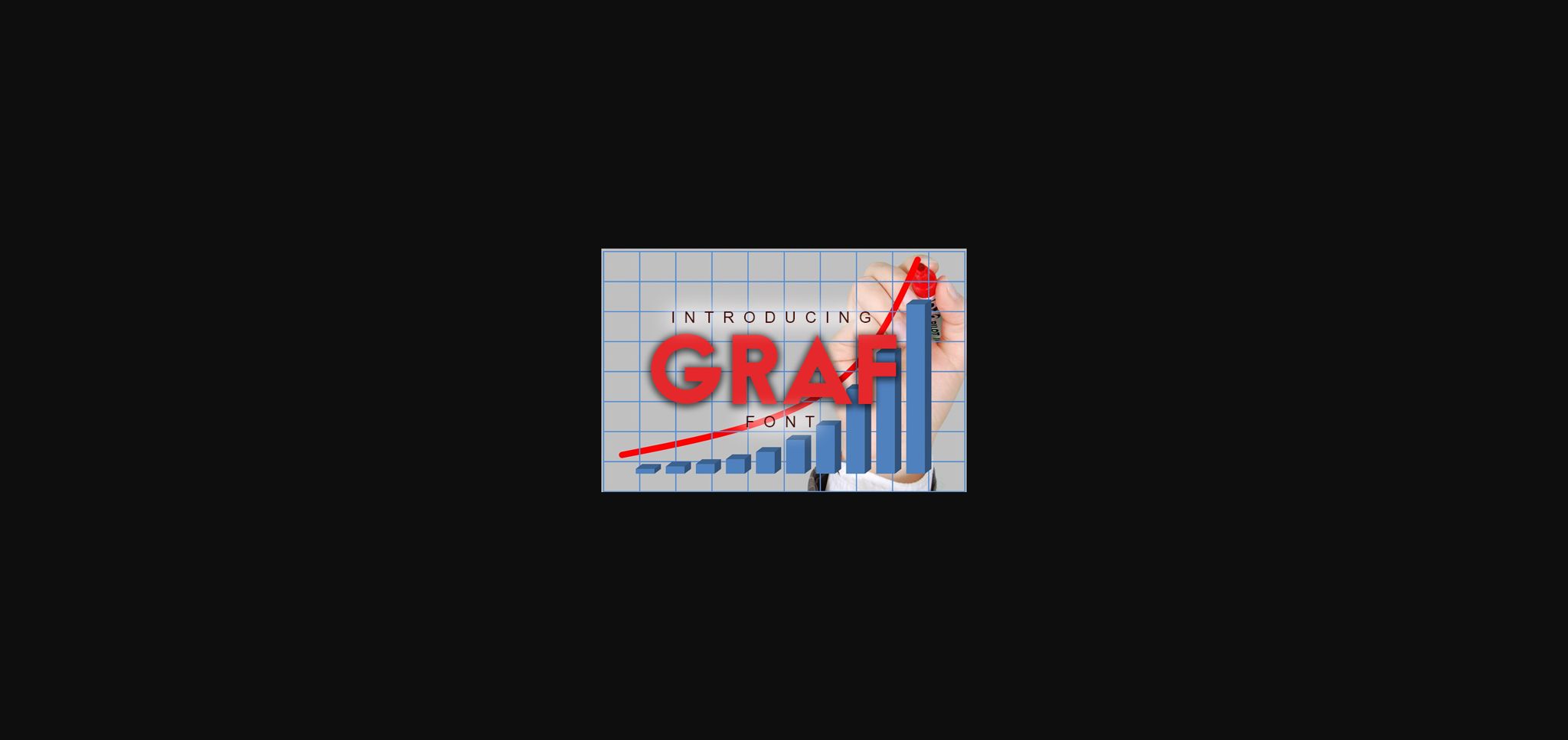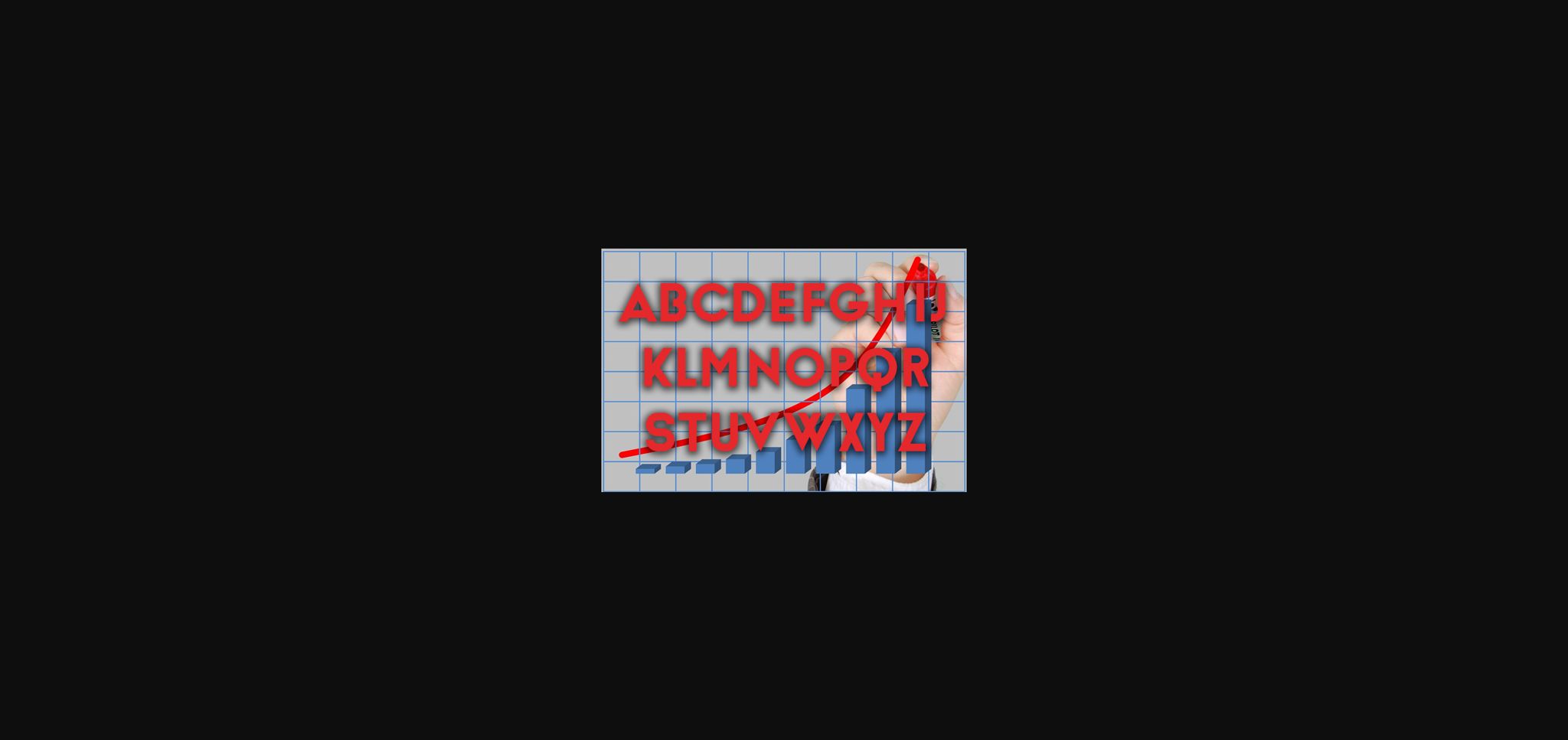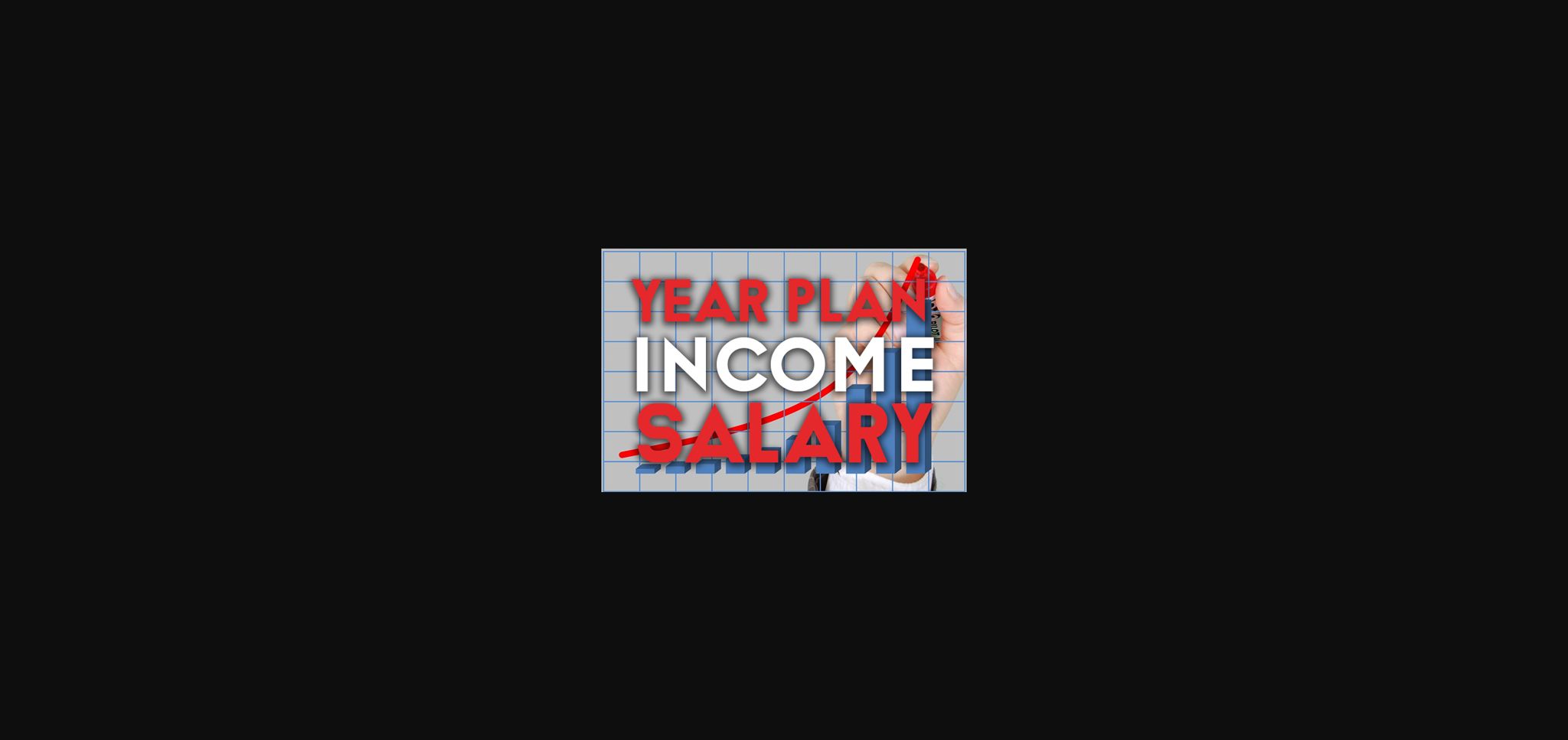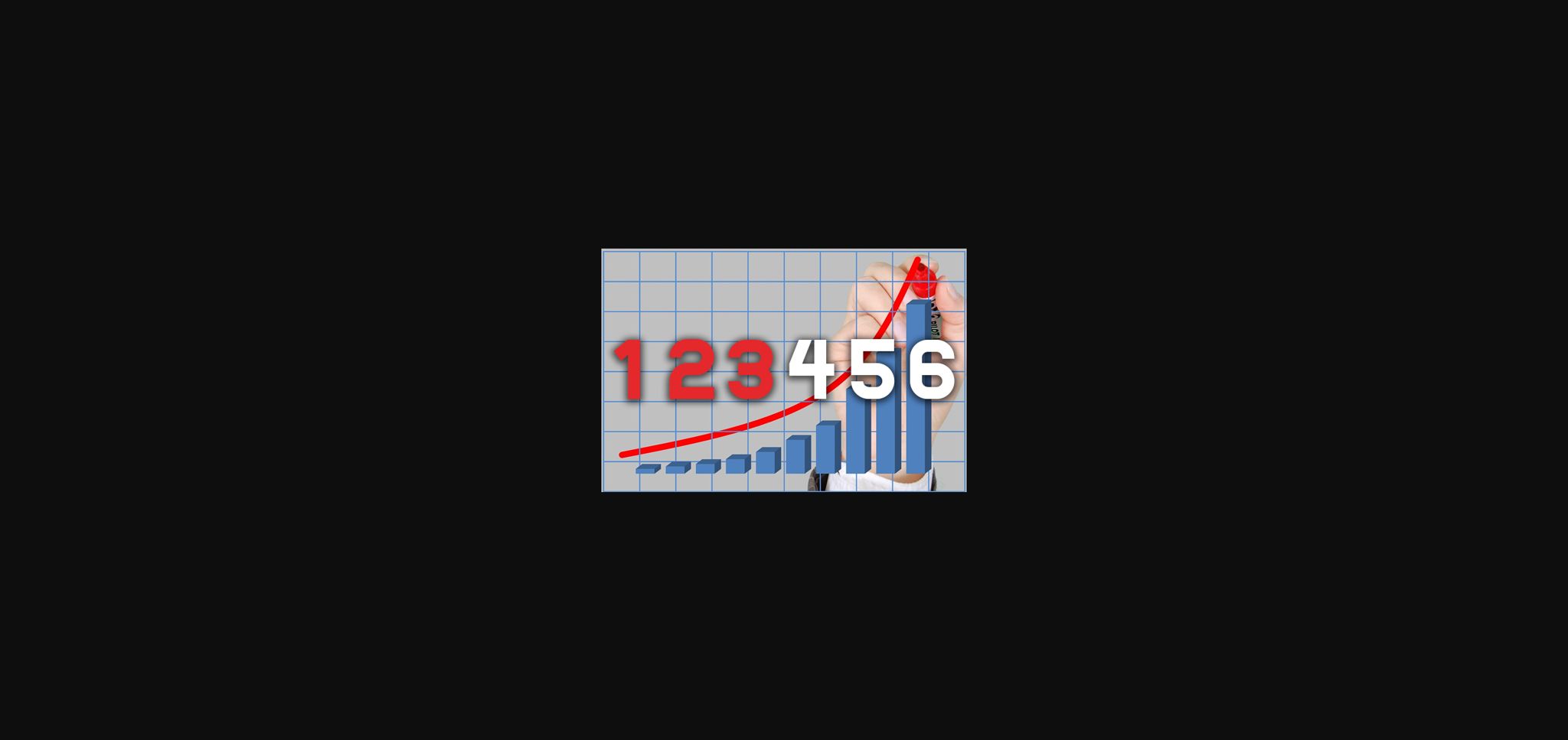
About Graf Font
Graf is a striking bold sans serif font that will take your designs to the next level.
Use this font on shirts, postcards, and banners.